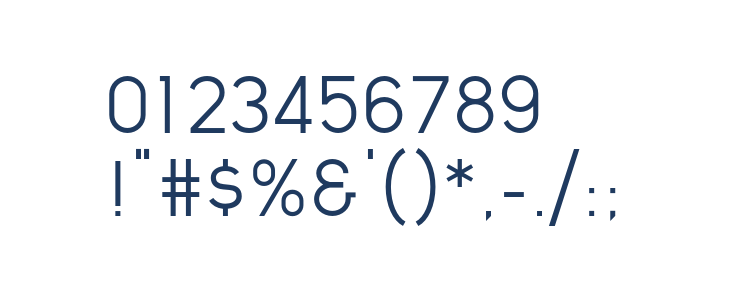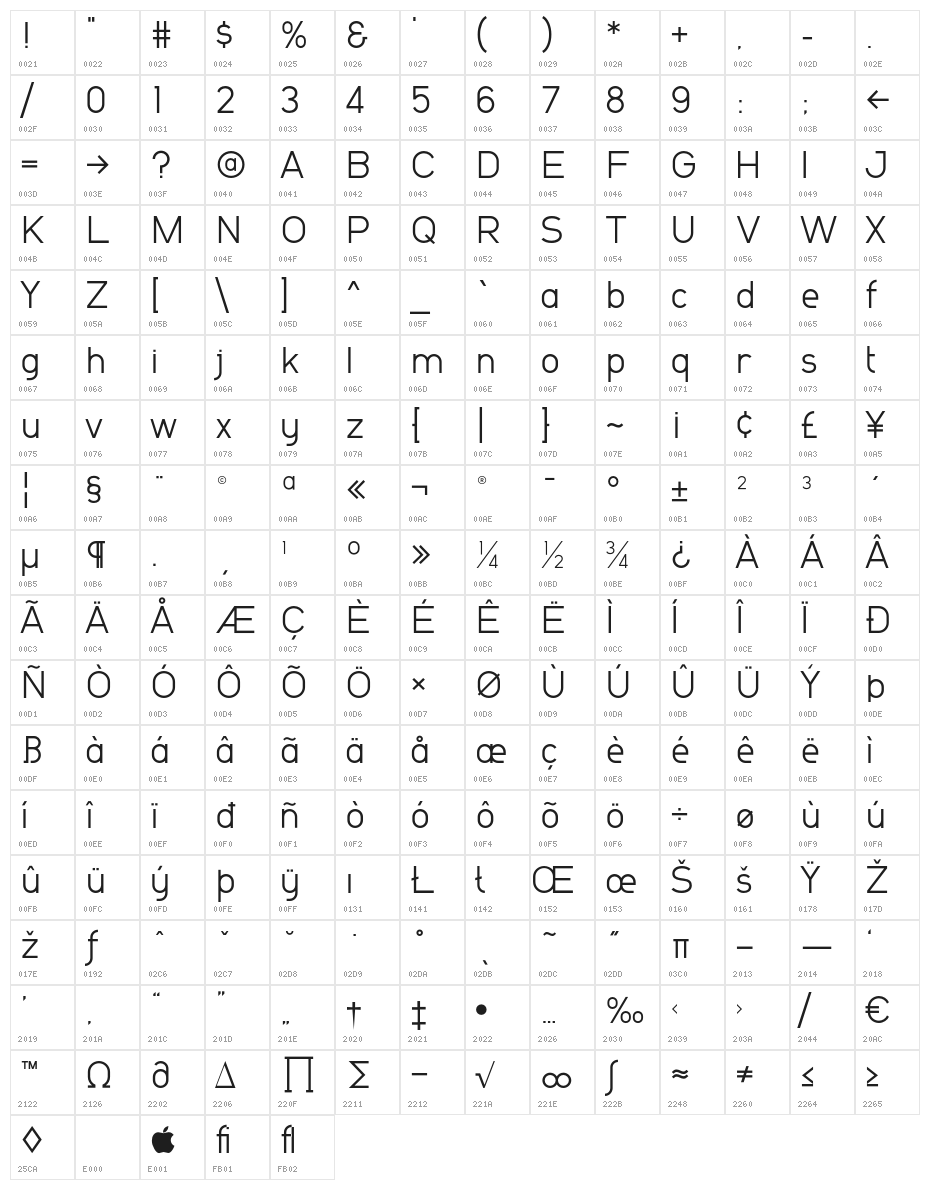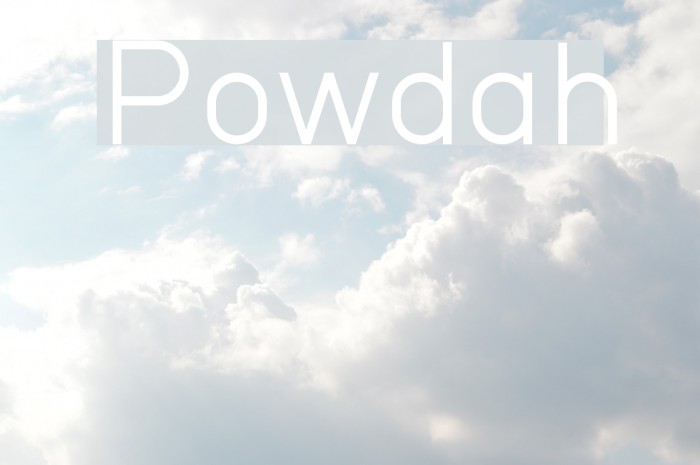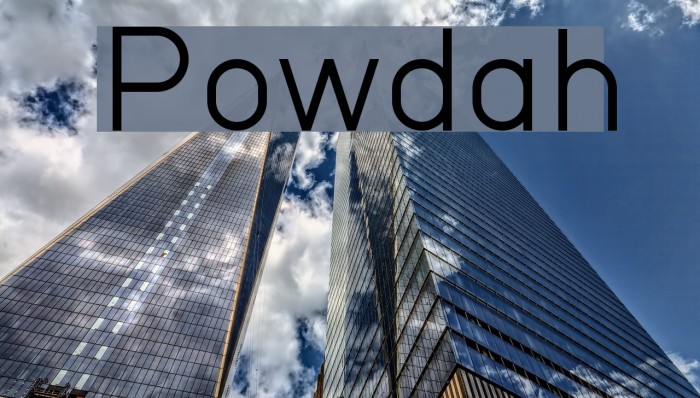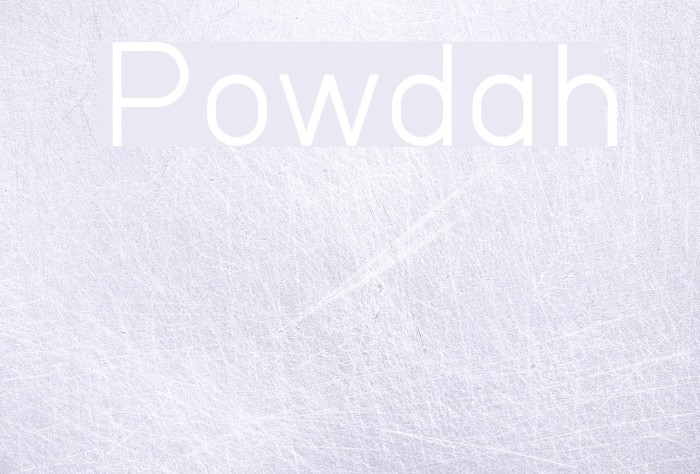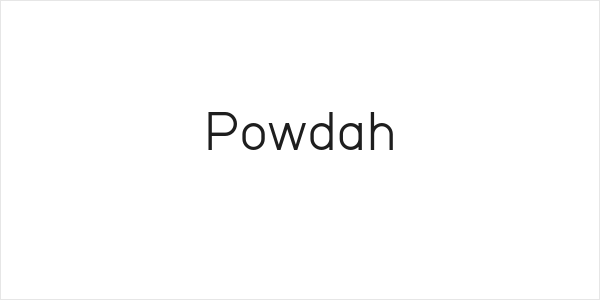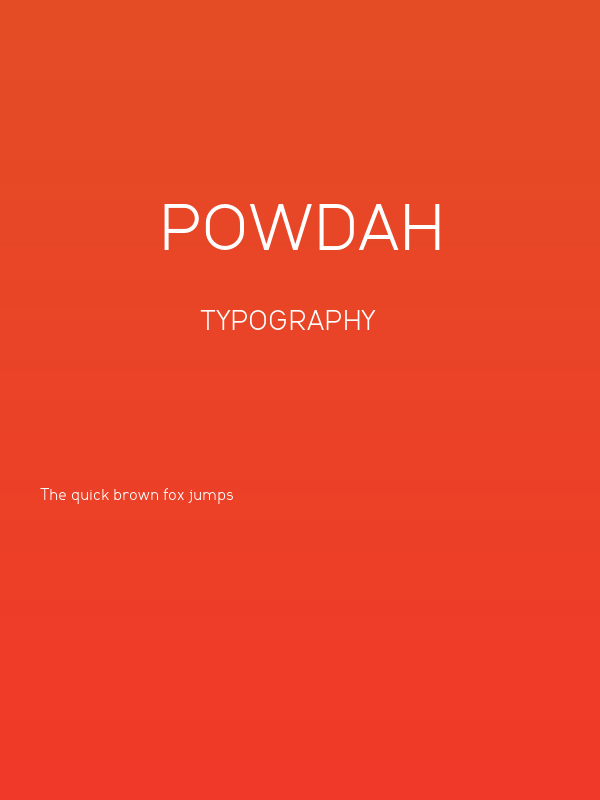
Powdah Font
Powdah Description
This font features a clean and modern sans-serif design with uniform stroke widths, providing a minimalist and contemporary appearance. The characters are well-proportioned, offering excellent legibility across both uppercase and lowercase letters. The numerals are clear and distinct, making them suitable for various applications. Special characters are included, maintaining the font's cohesive style. Its simplicity and clarity make it versatile for a wide range of design projects.